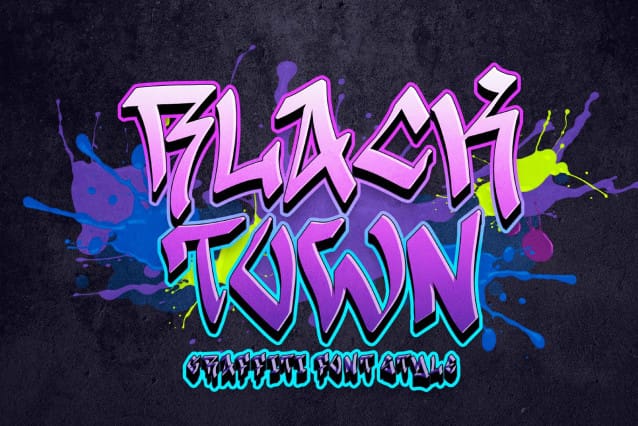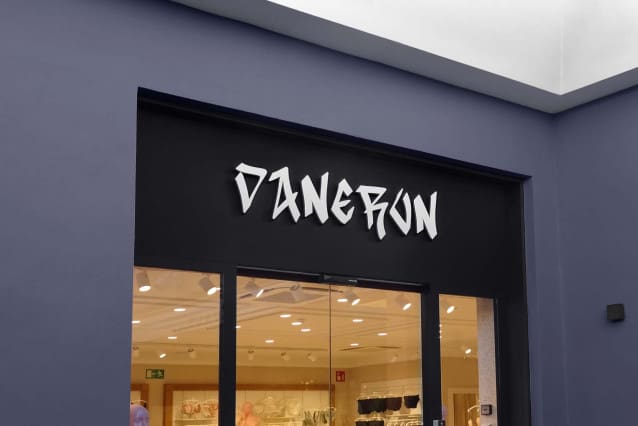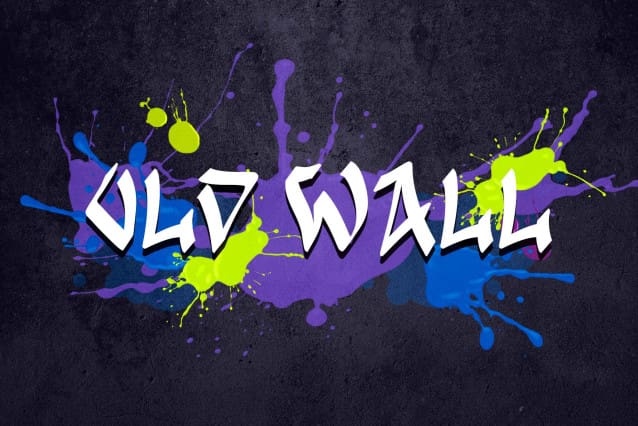
Black Town Font
Black Town Font is a unique and elegant graffiti font. This font is equipped with uppercase, lowercase, numerals, punctuations and multilingual support. Very suitable for logos, banners, posters, prints, stickers, branding, summer, spring, Halloween, music concerts, film titles, social media.